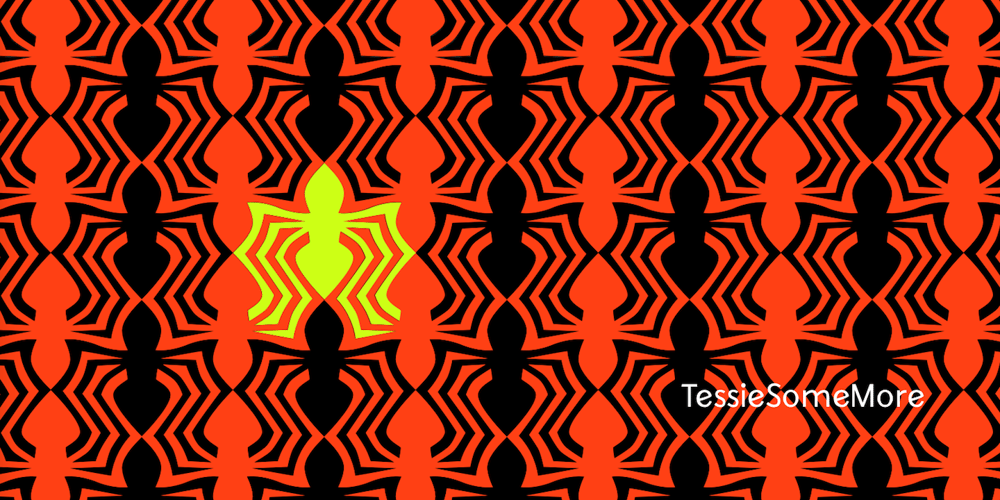
Tessie Some More Font Family was designed by Robert Schenk and published by Ingrimayne Type. Tessie Some More contains 2 styles and family package options. A tessellation is a shape that can be used to completely fill the plane without gaps or overlaps—simple examples are isosceles triangles, squares, and hexagons. Tessellation patterns are eye-catching and visually appealing, which is the reason that they have long been popular in a variety of decorative situations. TessieSomeMore has two family members, a solid style that must have different colors to be useful and an outline style. They can be used separately or they can be used in layers with the outline style on top of the solid style. For rows to align properly, leading must be the same as point size. To see how patterns can be constructed, see the “Samples” file here.Shapes that tessellate and also resemble real-world objects are often called Escher-like tessellations. Most of the shapes in TessieSomeMore are Escher-like. Over half are either bug-like and bird-like shapes. There are also a few animal and other object shapes as well as some geometric or abstract shapes that have visual appeal.